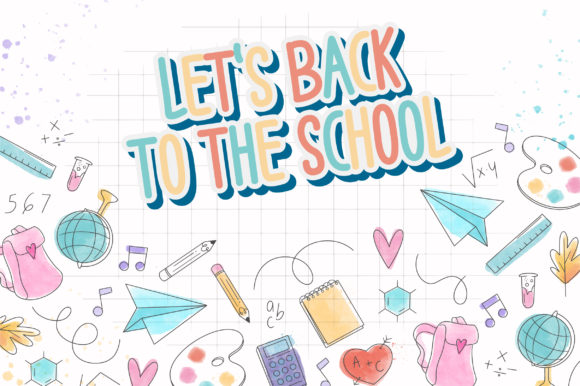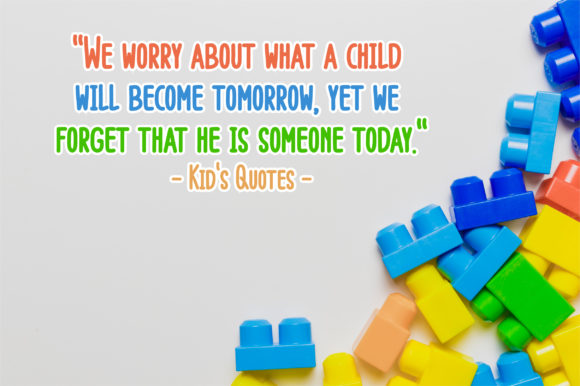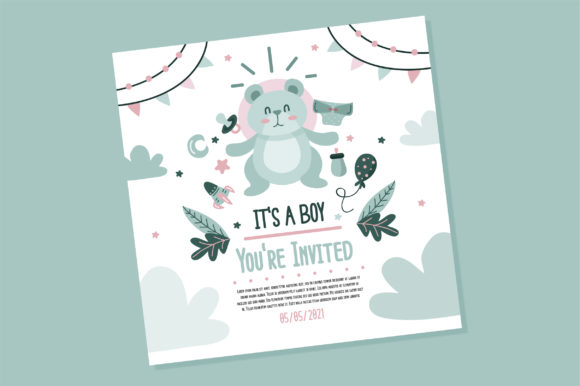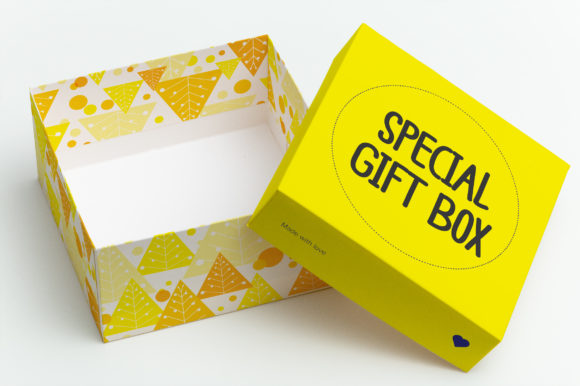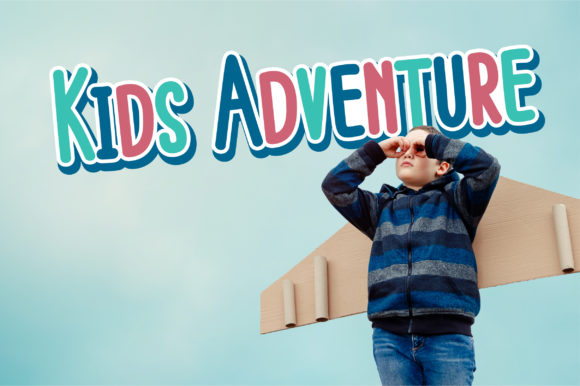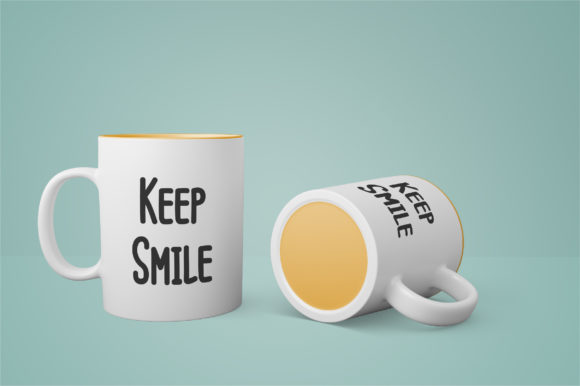
Unleash Your Creativity with Kid Boys Font
Enter Kid Boys Font, a playful and adorable display font designed to add a touch of whimsy to your designs. Whether you’re a seasoned designer or a DIY enthusiast, this font is perfect for crafting unique and eye-catching visual elements that capture attention and leave a lasting impression. With Kid Boys Font, you can elevate your creative projects and make them truly special.
Kid Boys Font Key Features
- Font Family: Kid Boys Font is a custom-designed font family specifically created for children’s content.
- Unique Characteristics: The font features a playful, child-friendly design with rounded edges and bold lines, making it perfect for creating engaging and fun content for kids.
Designer Review: Kid Boys Font
Overall, I think Kid Boys Font is a cute and playful font that can be used for various child-related projects. Here are some things that work well:
- ✨ Fun and energetic vibe: The font has a lively feel to it, making it perfect for kids’ magazines, educational materials, or even children’s party invitations.
- ✨ Good for headings: The font is bold and eye-catching, making it ideal for headings or titles where you want to grab the reader’s attention.
- ✨ Supports various languages: Kid Boys Font supports multiple languages, including English, Spanish, French, and more.
- ⚠️ Limited expressiveness: The font’s design is quite straightforward, which might make it less suitable for projects that require a more nuanced or sophisticated tone.
- ⚠️ Not ideal for body text: While the font is great for headings, it might be too bold or overwhelming for large blocks of body text.
In conclusion, Kid Boys Font is a great choice for projects that require a playful and energetic feel. While it has some limitations, it’s still a solid option for designers looking for a fun and kid-friendly font.
The Kid Boys Font is ideal for:
- Children’s book covers and illustrations
- Toy packaging and branding
To get the most out of the Kid Boys Font, try the following:
- Use it in combination with other playful fonts for a unique look. Alternatives to Kid Boys Font
- How to use Kid Boys Font: Use the font for the main headline, such as “Happy Birthday!” or the birthday boy’s name.
- Combine with other design elements: Pair the Kid Boys Font with bright and colorful illustrations, patterns, or graphics to create a festive atmosphere.
- Tips: Use bold text for the headline and regular text for the party details. Experiment with different font sizes and colors to create visual hierarchy.
- How to use Kid Boys Font: Use the font for menu item names, such as “Mac ‘n Cheese” or “Fresh Fruit Salad.”
- Combine with other design elements: Pair the Kid Boys Font with colorful icons, graphics, or images of food to make the menu more appealing.
- Tips: Use a large font size for menu item names and a smaller font size for descriptions. Consider adding a background image or texture to give the menu a playful feel.
Create a playful and eye-catching birthday invitation for kids using the Kid Boys Font. This font is perfect for adding a touch of whimsy and fun to your design.
Project 2: Kids’ Party Menu Board
Design a fun and interactive menu board for kids using the Kid Boys Font. This font is great for creating a playful and kid-friendly atmosphere.
Project 3: Children’s Book Cover Design
Create a charming and engaging book cover design for kids using the Kid Boys Font. This font is perfect for adding a touch of warmth and friendliness to your design.